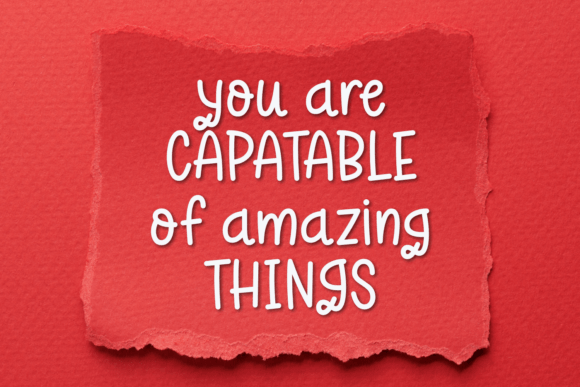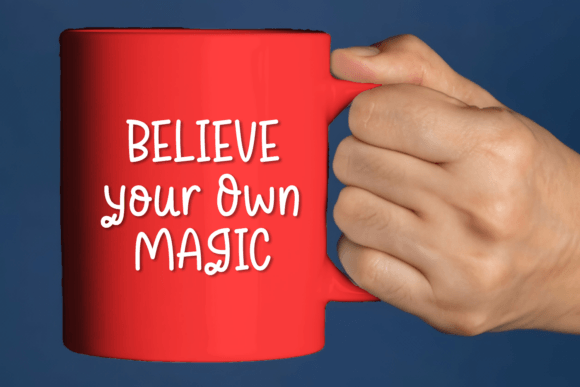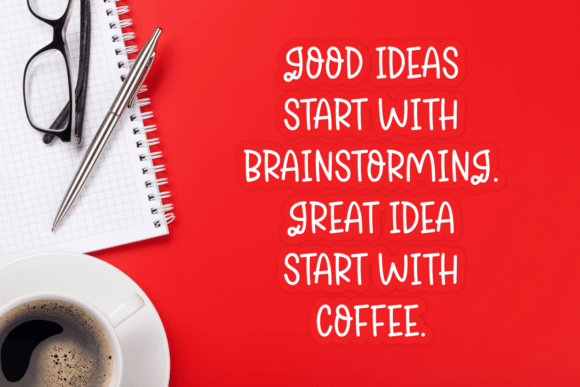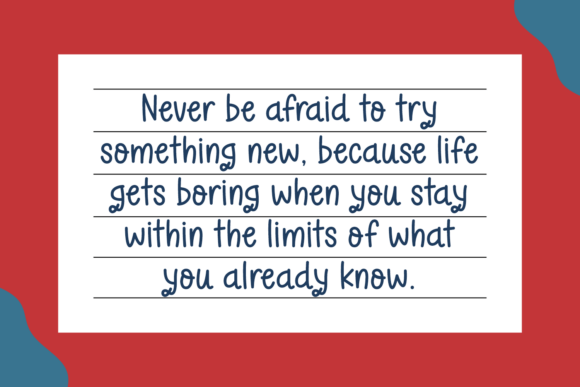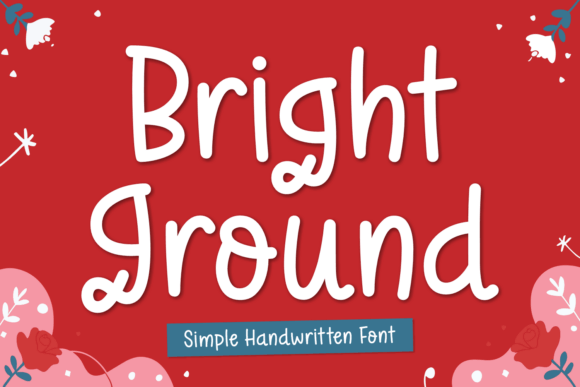
Introducing Bright Ground Font: The Perfect Choice for Playful and Friendly Designs
Are you looking for a font that can add a touch of warmth and personality to your designs? Look no further than Bright Ground Font, a cute handwritten font with a playful and friendly style. This charming font is perfect for creating personal notes, invitations, and cheerful designs that are sure to delight your audience.
The Characteristics of Bright Ground Font
Bright Ground Font is characterized by its rounded letters, which give it a warm and inviting feel. The font’s playful and friendly style makes it perfect for designs that require a personal touch. Whether you’re creating a greeting card, a party invitation, or a social media post, Bright Ground Font is sure to add a touch of creativity and whimsy to your project.
Why Choose Bright Ground Font?
There are many reasons why Bright Ground Font is a great choice for designers and crafters. Here are just a few:
• Easy to Read: Bright Ground Font is clear and easy to read, making it perfect for designs that require a lot of text.
• Playful and Friendly: The font’s playful and friendly style makes it perfect for creating cheerful designs that are sure to delight your audience.
• Versatile: Bright Ground Font can be used for a wide range of projects, from personal notes and invitations to social media posts and blog headers.
• Creative: The font’s unique and creative style is sure to add a touch of personality to any project.
Uses for Bright Ground Font
Bright Ground Font is a versatile font that can be used for a wide range of projects. Here are just a few ideas to get you started:
• Personal Notes: Use Bright Ground Font to create personal notes and letters that are sure to delight your friends and family.
• Invitations: Create beautiful and playful invitations for parties, weddings, and other special events.
• Social Media Posts: Use Bright Ground Font to create eye-catching social media posts that are sure to grab the attention of your followers.
• Blog Headers: Add a touch of personality to your blog headers with Bright Ground Font.
• Crafting Projects: Use Bright Ground Font to create beautiful and unique crafting projects, such as handmade cards and gift tags.
Tips for Using Bright Ground Font
Here are a few tips for using Bright Ground Font:
• Use it with Color: Bright Ground Font looks great when paired with bright and cheerful colors.
• Experiment with Sizes: Try using Bright Ground Font in different sizes to create visual interest and hierarchy.
• Pair it with Other Fonts: Bright Ground Font pairs well with other playful and friendly fonts.
• Use it for Headlines: Bright Ground Font is perfect for headlines and titles, where its playful and friendly style can really shine.
Bright Ground Font is a charming and versatile font that is perfect for designers and crafters who want to add a touch of personality to their projects. With its playful and friendly style, rounded letters, and easy-to-read design, Bright Ground Font is sure to delight your audience and add a touch of creativity to any project. So why not give it a try and see what amazing designs you can create?